This is how text looks like in TeX:
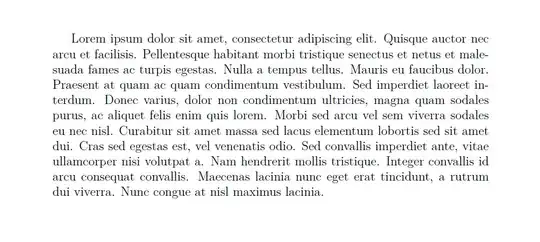
This persists and looks about the same even when I print it out.
By comparison, here's how the text looks in Word (Calibri):
When reading the TeX paragraph, I feel like the letters are swimming before my eyes and can't be focused on. Is this font style on purpose, perhaps because it's easier to read in the long run, or is that an error in my configuration?
This happens even with the example here: http://mally.stanford.edu/~sr/computing/latex-example.html